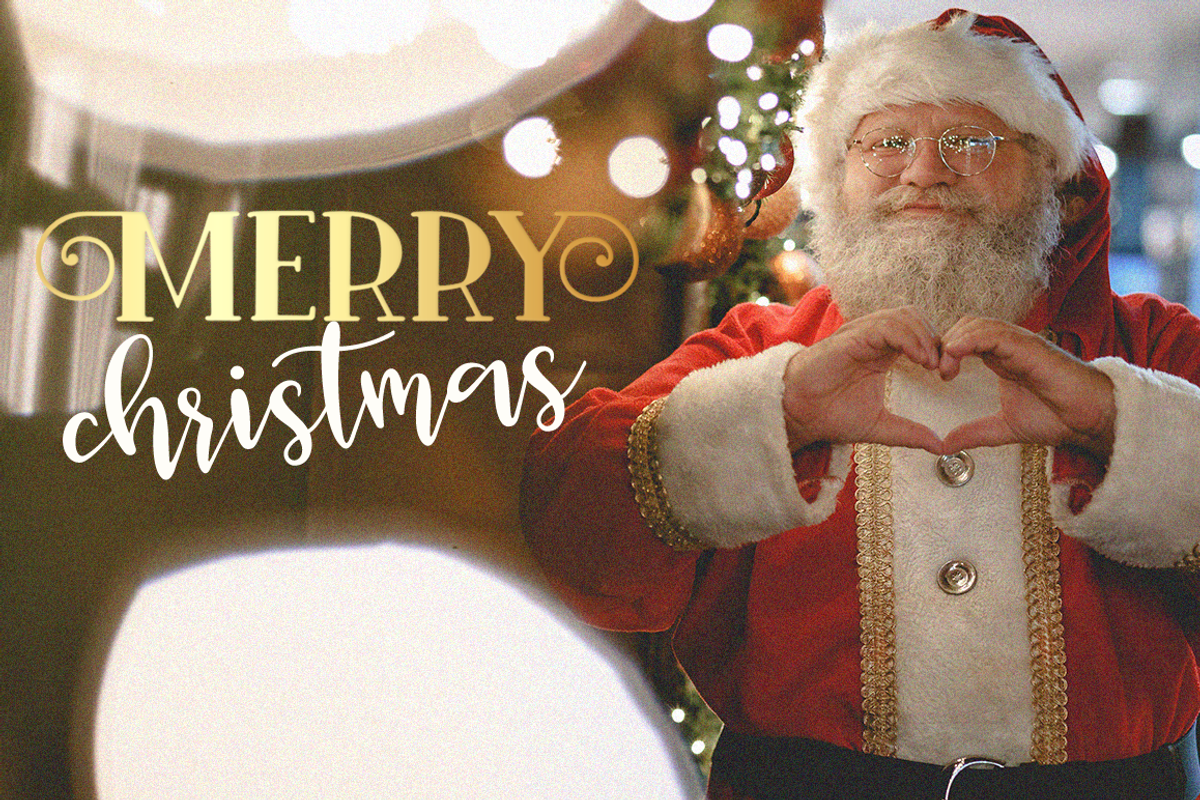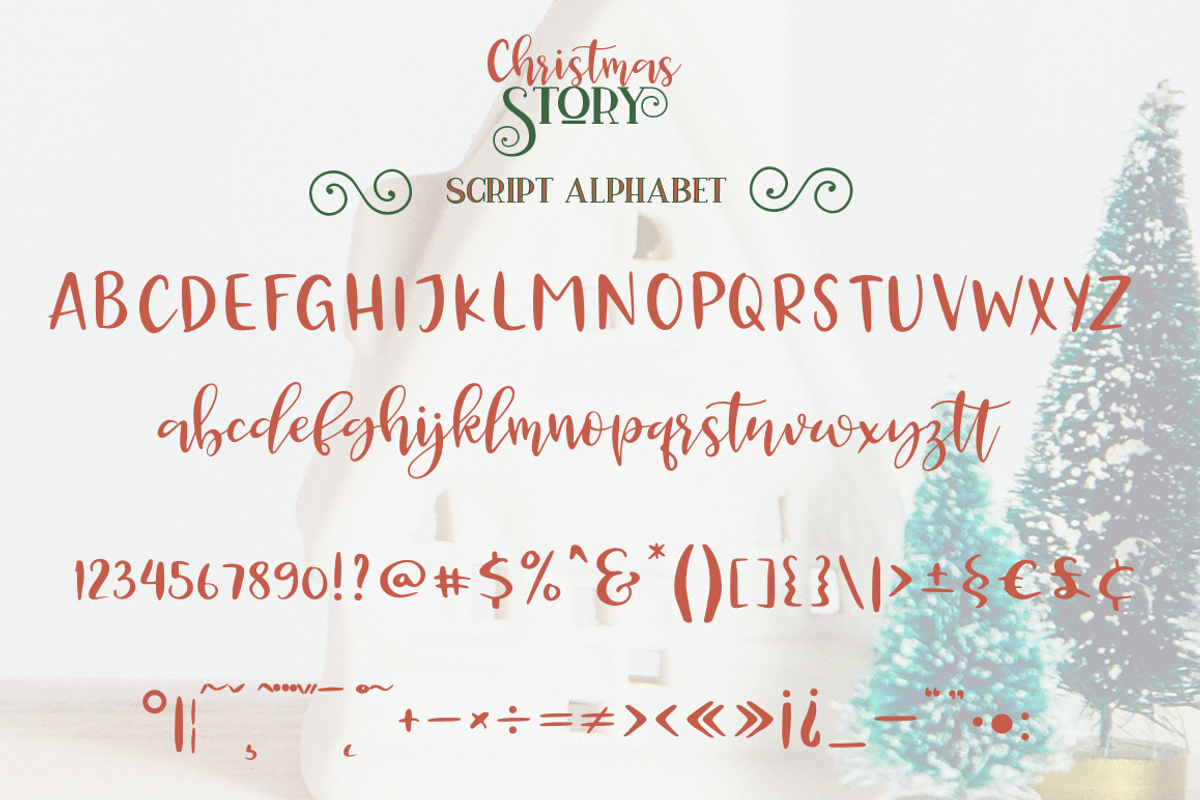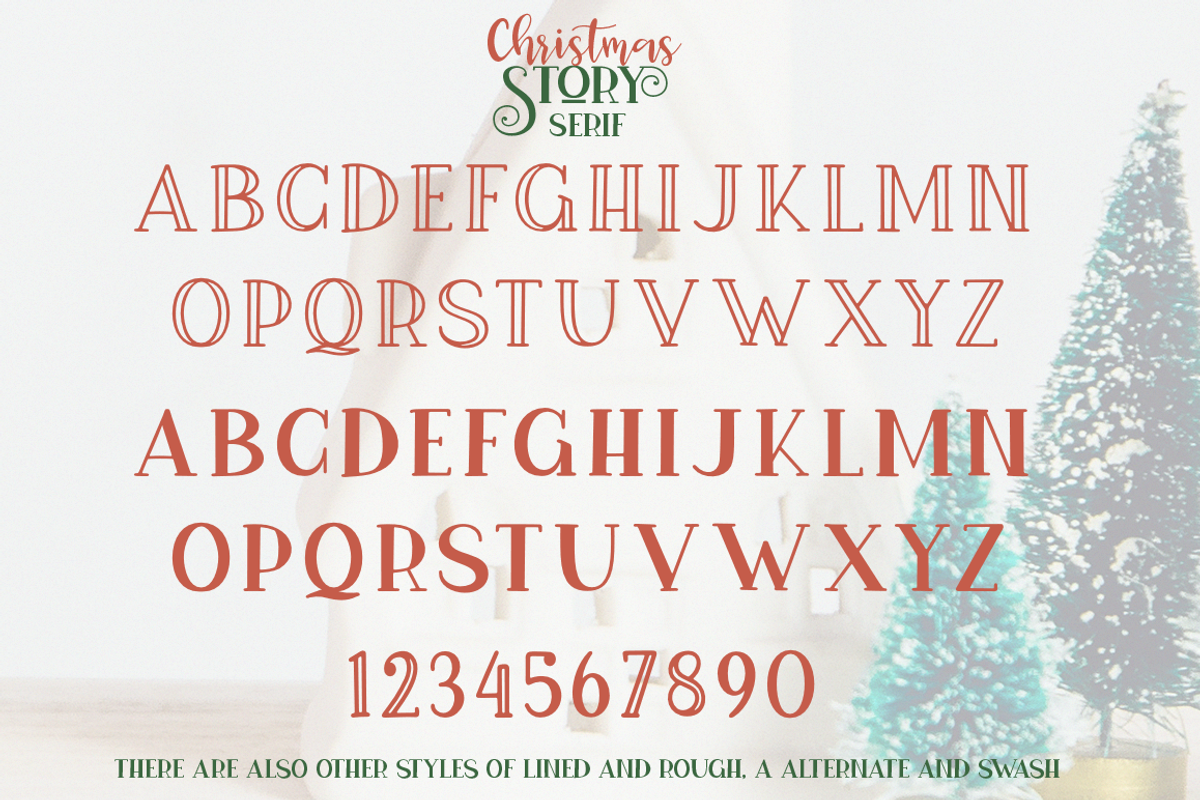
Christmas Story
Christmas Story - a new fresh handmade font collection.
These fonts are perfect for each other, made in several styles that will help you make your project more complete and bright. This fonts is ideal for branding and decorate your any project. Also with their help, you can create a logo or beautiful frame for your home. Or just use for your small business, book covers, stationery, marketing, blog, magazines and more.